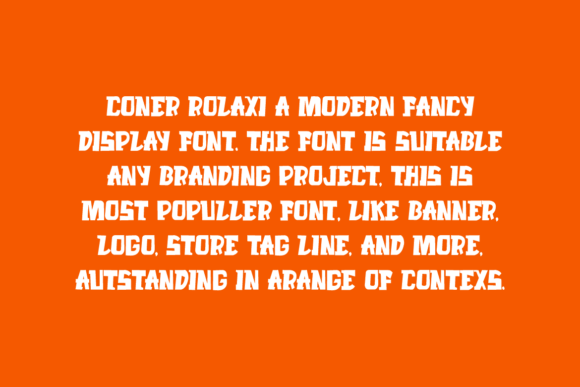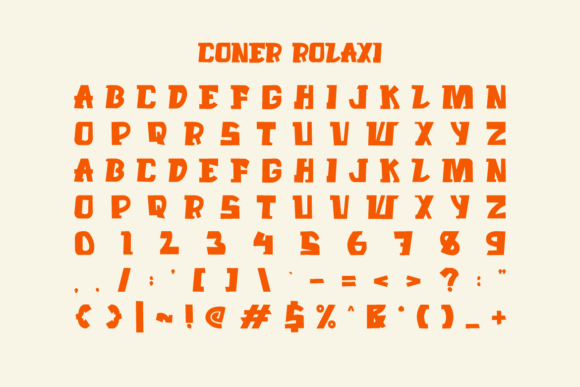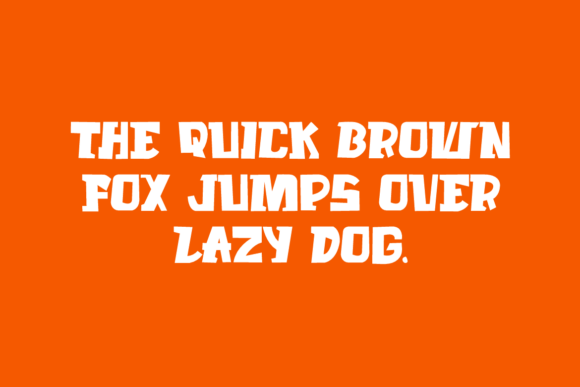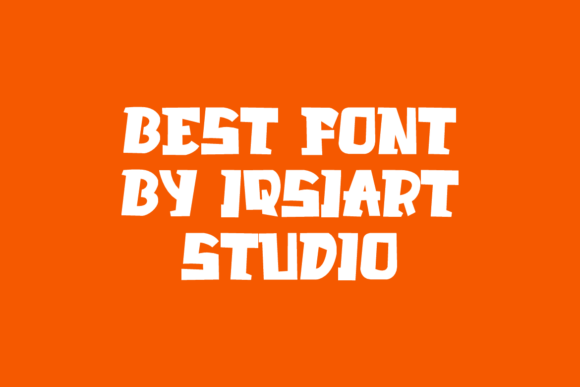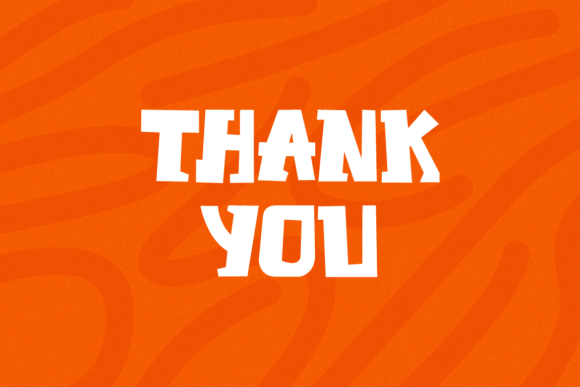
Introducing Coner Rolaxi Font: The Bold and Quirky Display Font for Modern Designers
In the world of typography, fonts play a crucial role in conveying the tone and personality of a brand or design project. For designers and crafters looking for a bold and modern display font that exudes confidence and energy, Coner Rolaxi is an excellent choice. This quirky and chunky font is perfect for making a statement in posters, sports branding, urban apparel, and high-impact headlines.
What Makes Coner Rolaxi Font Stand Out?
Coner Rolaxi is a bold and modern display font that boasts quirky angles and a chunky confidence that sets it apart from other fonts. Its unique design makes it an ideal choice for designers who want to add a touch of personality to their projects. Whether you’re working on a sports branding project, creating a bold poster, or designing urban apparel, Coner Rolaxi is sure to bring energy and excitement to your design.
Key Features of Coner Rolaxi Font
- Bold and Modern Design: Coner Rolaxi features a bold and modern design that’s perfect for making a statement in any design project.
- Quirky Angles: The font’s quirky angles add a touch of personality and whimsy to any design.
- Chunky Confidence: Coner Rolaxi exudes confidence and energy, making it perfect for high-impact headlines and bold designs.
- Versatile: This font is versatile and can be used in a variety of design projects, from posters and sports branding to urban apparel and more.
Use Cases for Coner Rolaxi Font
Coner Rolaxi is a versatile font that can be used in a variety of design projects. Here are some use cases where this font shines:
- Posters: Coner Rolaxi is perfect for creating bold and eye-catching posters that grab attention.
- Sports Branding: The font’s bold and modern design makes it an excellent choice for sports branding projects, such as team logos, jerseys, and more.
- Urban Apparel: Coner Rolaxi is ideal for designing urban apparel, such as t-shirts, hoodies, and hats.
- High-Impact Headlines: The font’s chunky confidence and quirky angles make it perfect for creating high-impact headlines that grab attention.
Tips for Using Coner Rolaxi Font
Here are some tips for using Coner Rolaxi font in your design projects:
- Use it boldly: Coner Rolaxi is a bold font, so don’t be afraid to use it boldly in your designs.
- Experiment with colors: The font’s quirky angles and chunky confidence make it perfect for experimenting with different colors and gradients.
- Pair it with other fonts: Coner Rolaxi can be paired with other fonts to create a unique and interesting design.
Coner Rolaxi is a bold and modern display font that’s perfect for designers and crafters looking to add a touch of personality to their projects. Its quirky angles, chunky confidence, and versatile design make it an excellent choice for a variety of design projects, from posters and sports branding to urban apparel and high-impact headlines. With Coner Rolaxi, you can bring energy and excitement to your designs and make a lasting impression on your audience.